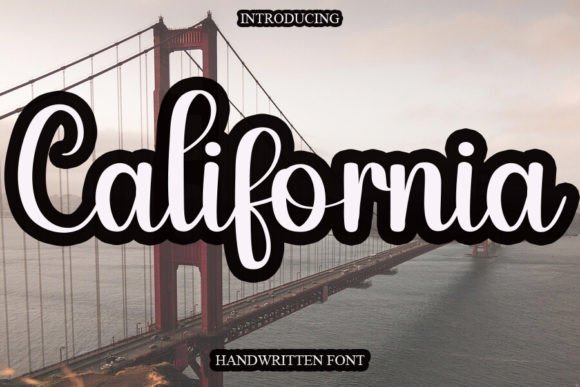
The Perfect Handwritten Companion: California Font
Do you ever find yourself rummaging through your craft supplies, searching for the perfect font to match the whimsy of your latest project? We’ve all been there, staring blankly at a sea of paper and pens, desperate for that one font that will make our design pop. For many of us, that font is the California Font – a fun and friendly handwritten font that’s perfect for everything from crafting to digital design.
Whether you’re a seasoned designer or a DIY enthusiast, the California Font is a valuable addition to any creative arsenal. Its versatility and charm make it a go-to choice for presentations, greeting cards, and even social media posts. With its playful, handwritten feel, this font is sure to add a personal touch to any project, making it a favorite among designers and crafty folks alike.
California Font Key Features
- Unique Characteristics: This font features a unique, hand-drawn style with subtle imperfections, giving it a personal and authentic feel that is perfect for creative and artistic designs.
Designer Review: California Font
Overall, I’d say the California Font has a lot going for it, but also some notable limitations. Let’s start with the good stuff:
- ✨ The font has a relaxed, casual vibe that’s perfect for designs targeting a West Coast or laid-back audience.
- ✨ The font’s weight and line spacing are well-balanced, making it easy to read and understand.
- ✨ The font’s unique character set and ligatures add a touch of personality to designs, setting it apart from more generic fonts.
However, there are a few areas where the California Font falls short:
- ⚠️ The font may be too casual for more formal or professional designs, which could make it look unpolished or unprofessional.
- ⚠️ Some users may find the font’s irregularities and character variations distracting or difficult to read, especially in smaller sizes.
- ⚠️ The font’s availability in various weights and styles is limited, which could make it harder to achieve consistency across different design elements.
Overall, I’d say the California Font is a great choice for designers looking to add some personality and flair to their designs. However, it’s not the best fit for every project, and users should carefully consider the tone and style they’re aiming for before using it.
California Font is commonly used for:
- Signage and wayfinding systems
- Restaurant and cafe menus
- Hotel and resort branding
- Outdoor advertising and billboards
Tips for Getting the Most Out of California Font
Some tips for getting the most out of California Font include:
Create a mural or graffiti piece that celebrates the laid-back, bohemian vibe of California.
Use California Font to add a touch of playfulness and irreverence to your artwork. Pair it with:
Display your artwork in a public space or use it as a backdrop for a photo shoot.
Project 3: California-Themed Wedding Invitations
Create a set of wedding invitations that capture the romance and elegance of a California sunset.
Use California Font to add a touch of sophistication and whimsy to your invitations. Pair it with: